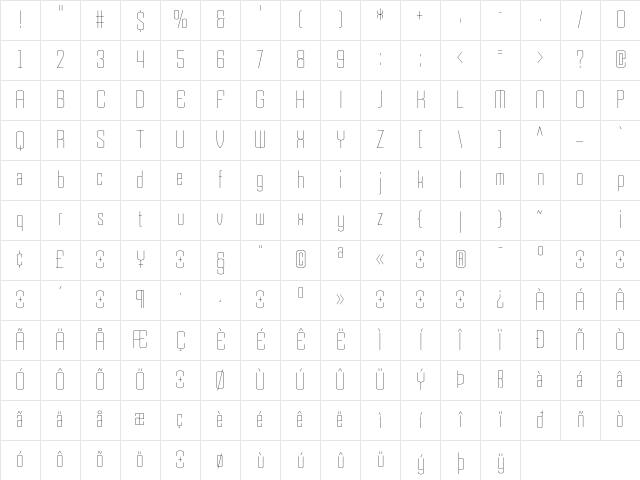
Complete Armada ThinCondensed glyph index. Displaying only characters natively supported by Armada ThinCondensed font.
Armada is a composed and adaptable typeface that performs quietly and consistently across a wide range of design contexts. Its slender proportions lend an understated elegance to any composition. Its narrow stance lets it pack a punch even in space-constrained designs.